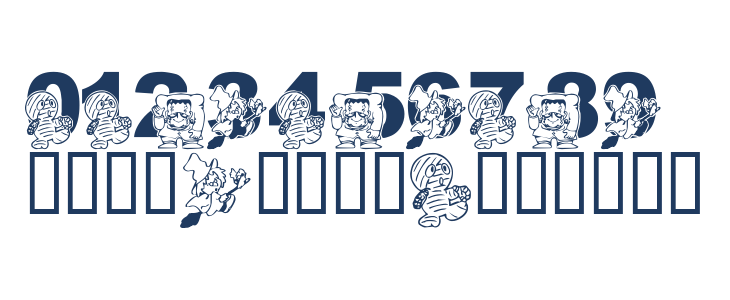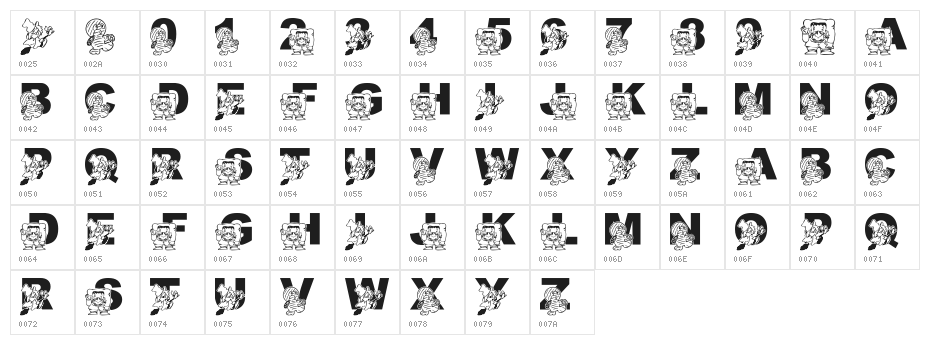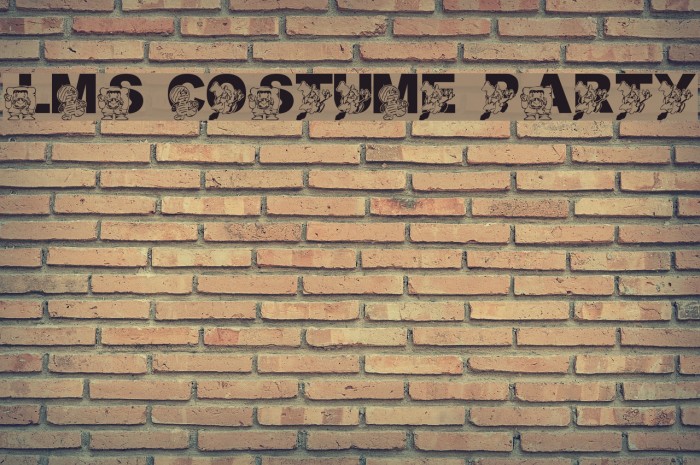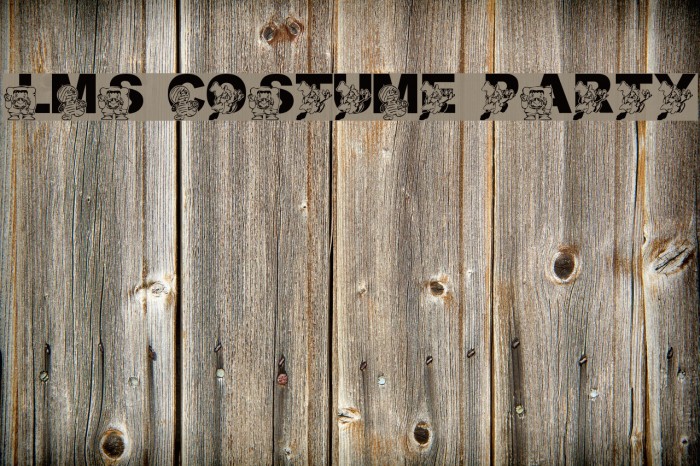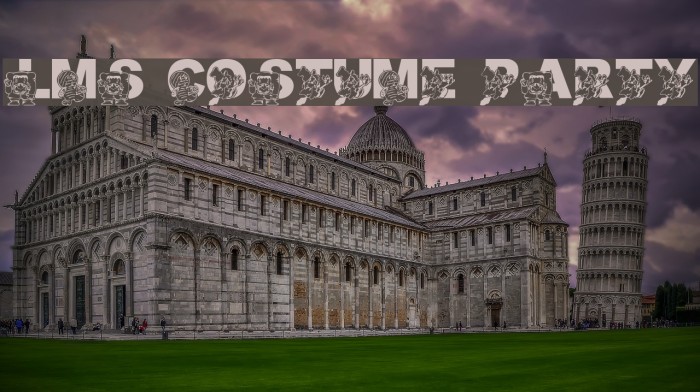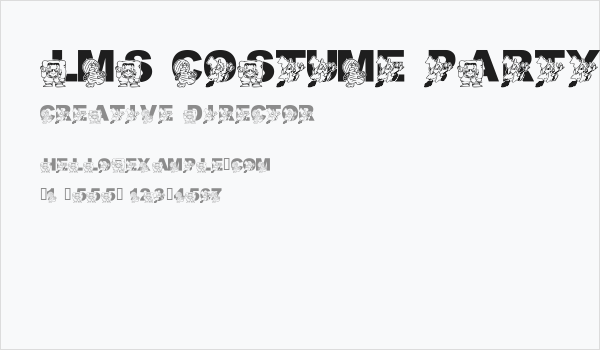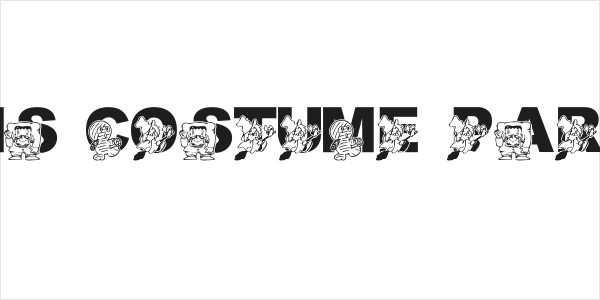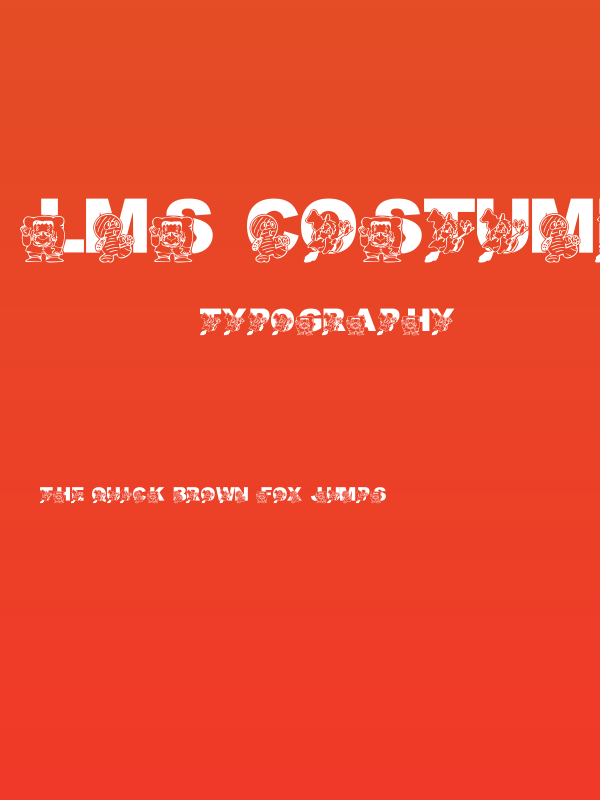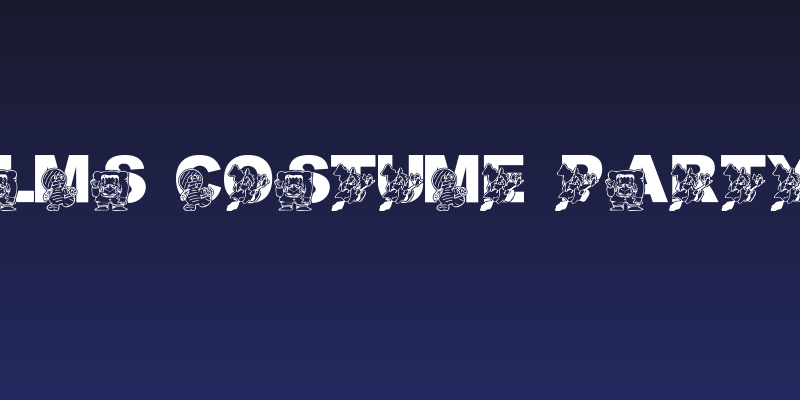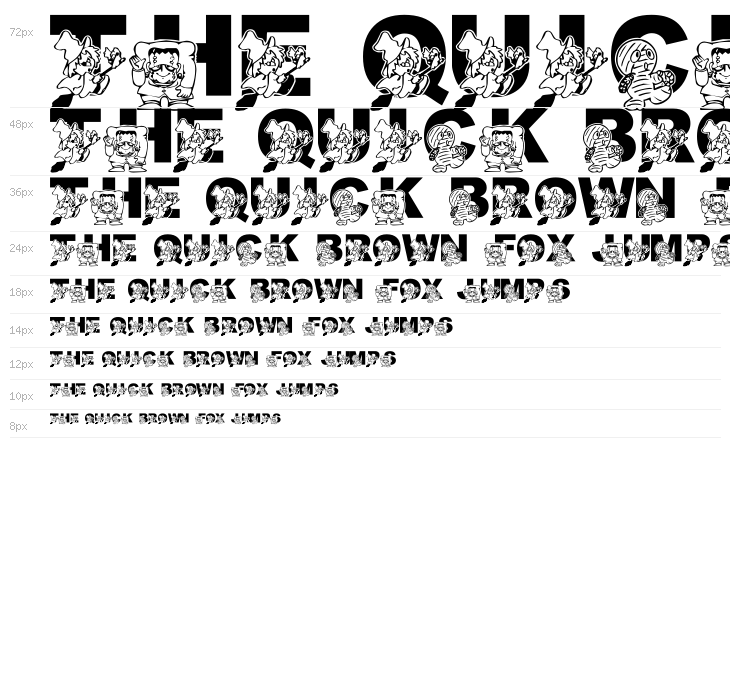
LMS Costume Party Font
This playful and whimsical font features bold, uppercase and lowercase letters, each accompanied by charming cartoon characters in various costumes. The characters add a lively and festive touch, making the font ideal for fun and creative projects. The letters are bold and slightly slanted, giving a dynamic and energetic feel. The inclusion of numbers and special characters ensures versatility, while the unique design elements make it stand out. Perfect for themed events, children's materials, or any project that requires a touch of humor and creativity.
Proposed ProjectsIdeal for children's books, party invitations, themed event posters, and playful branding.